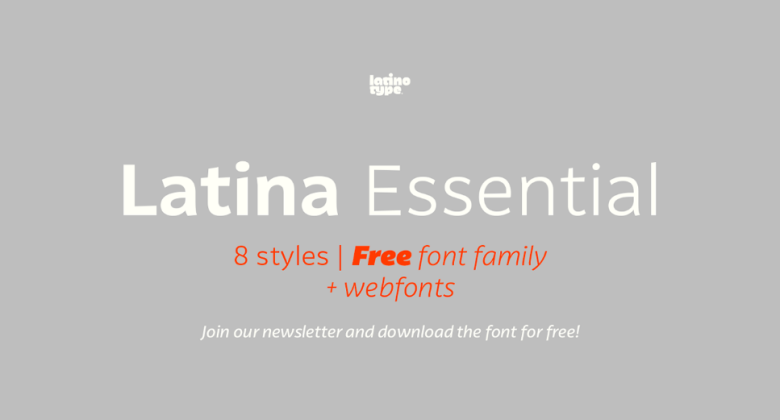
Latina Essential Font Family
Introducing to you a sans serif typeface family. Introducing Latina Essential Font Family! Latina Essential designed by Latinotype Foundry. Latina Essential is a humanist typeface designed for use in continuous text. The font comes in 4 weights with matching (true) italics. Latina Essential is well-suited for publishing design, books, magazines, branding and advertising.